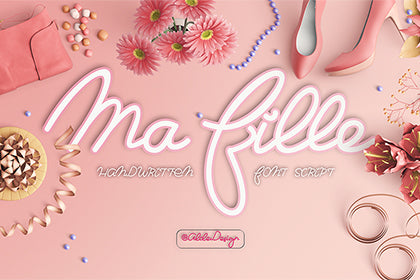
Free Ma Fille Signature Font
Introducing you to the absolutely beautiful free ma fille signature font. Go give some love to Free Design Resources for creating this top-notch typeface. Showcase your designs like a graphic design pro by adding a new touch with this beautiful font.